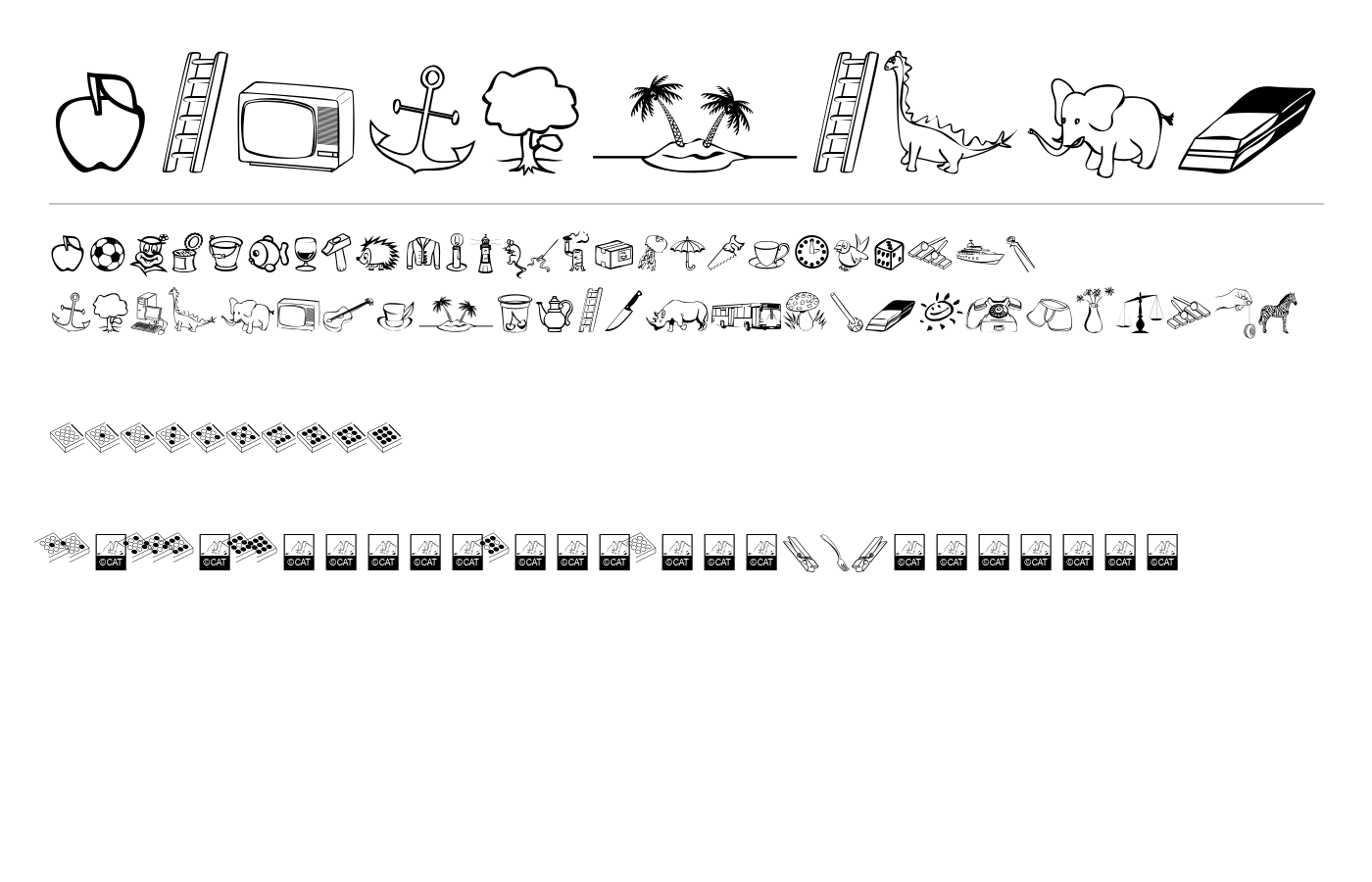
Alfabilder Font is a playful and whimsical symbol font featuring detailed, hand-drawn icons that represent everyday objects, animals, and activities. Its charming, sketch-like style adds a friendly and approachable feel, making it ideal for educational materials, children’s books, or creative projects seeking a fun and engaging visual element. This font works well where visual storytelling and lighthearted design are desired.
Alfabilder Font
About Alfabilder Font
| Designer | Peter Wiegel, original typeface by Carl Albert Fahrenwaldt 1901 |